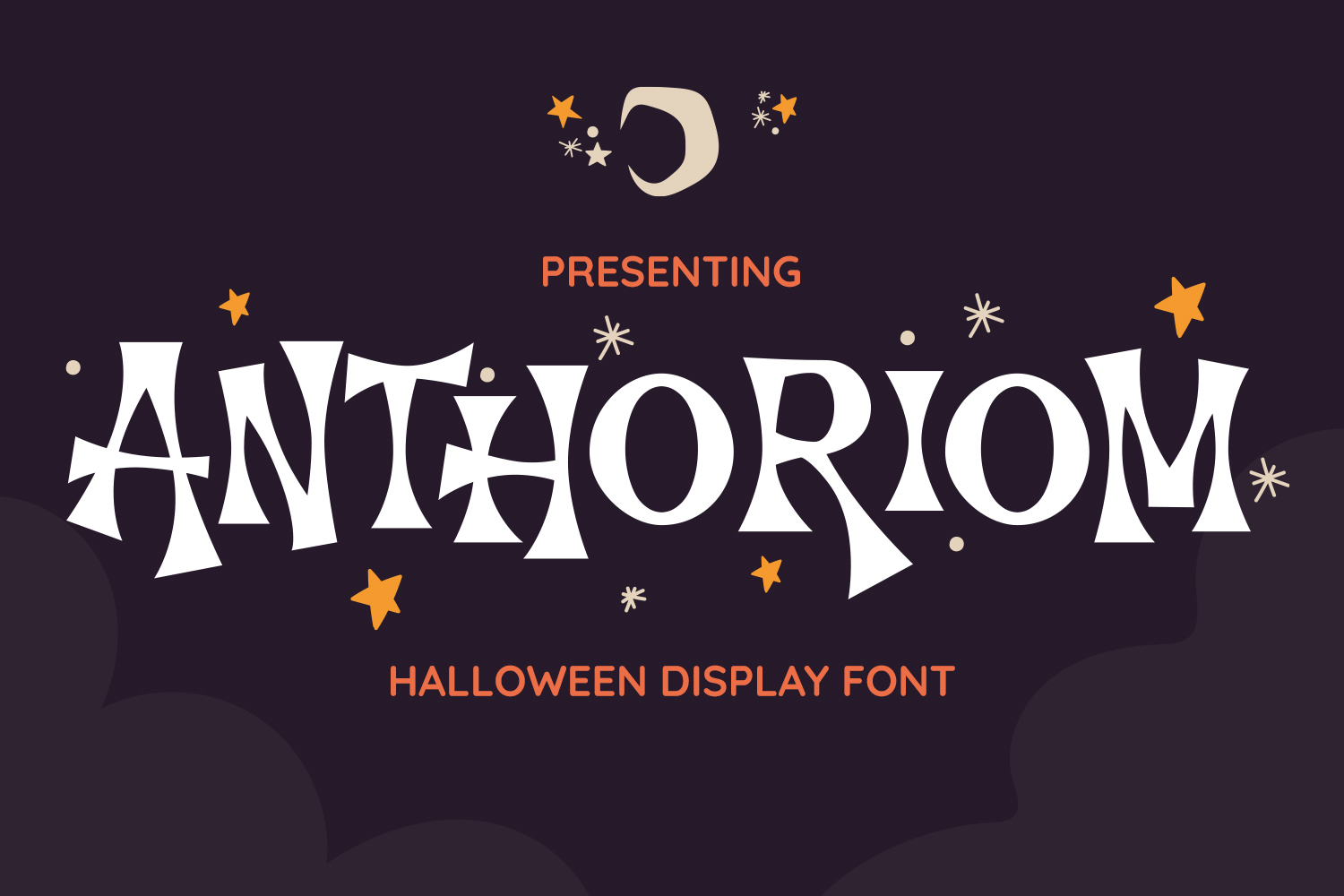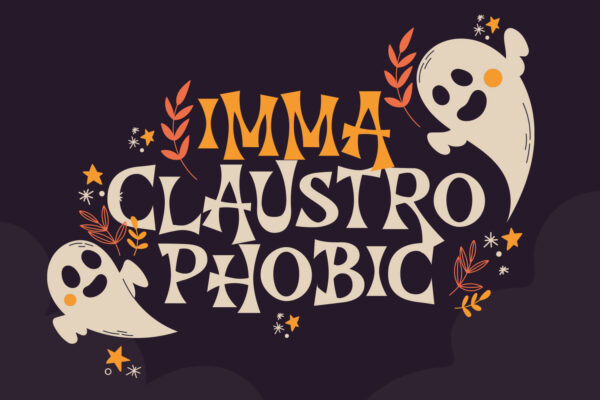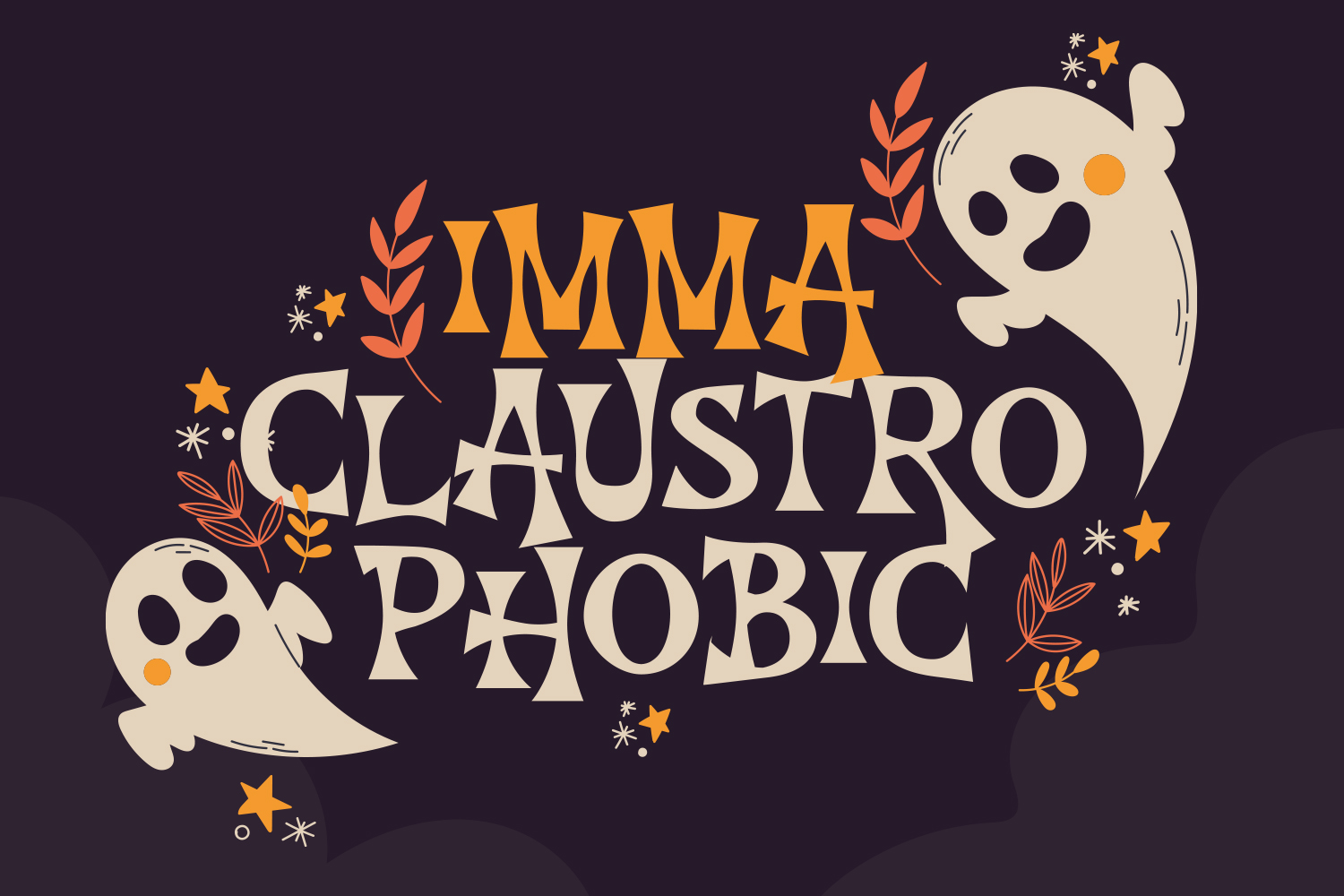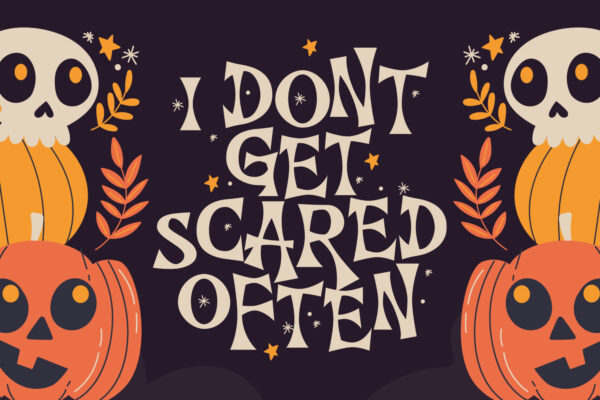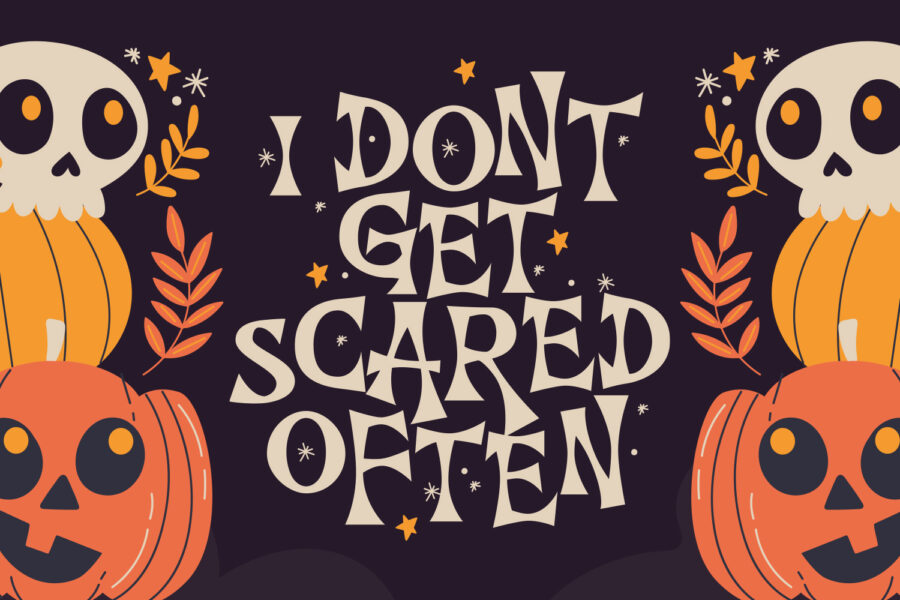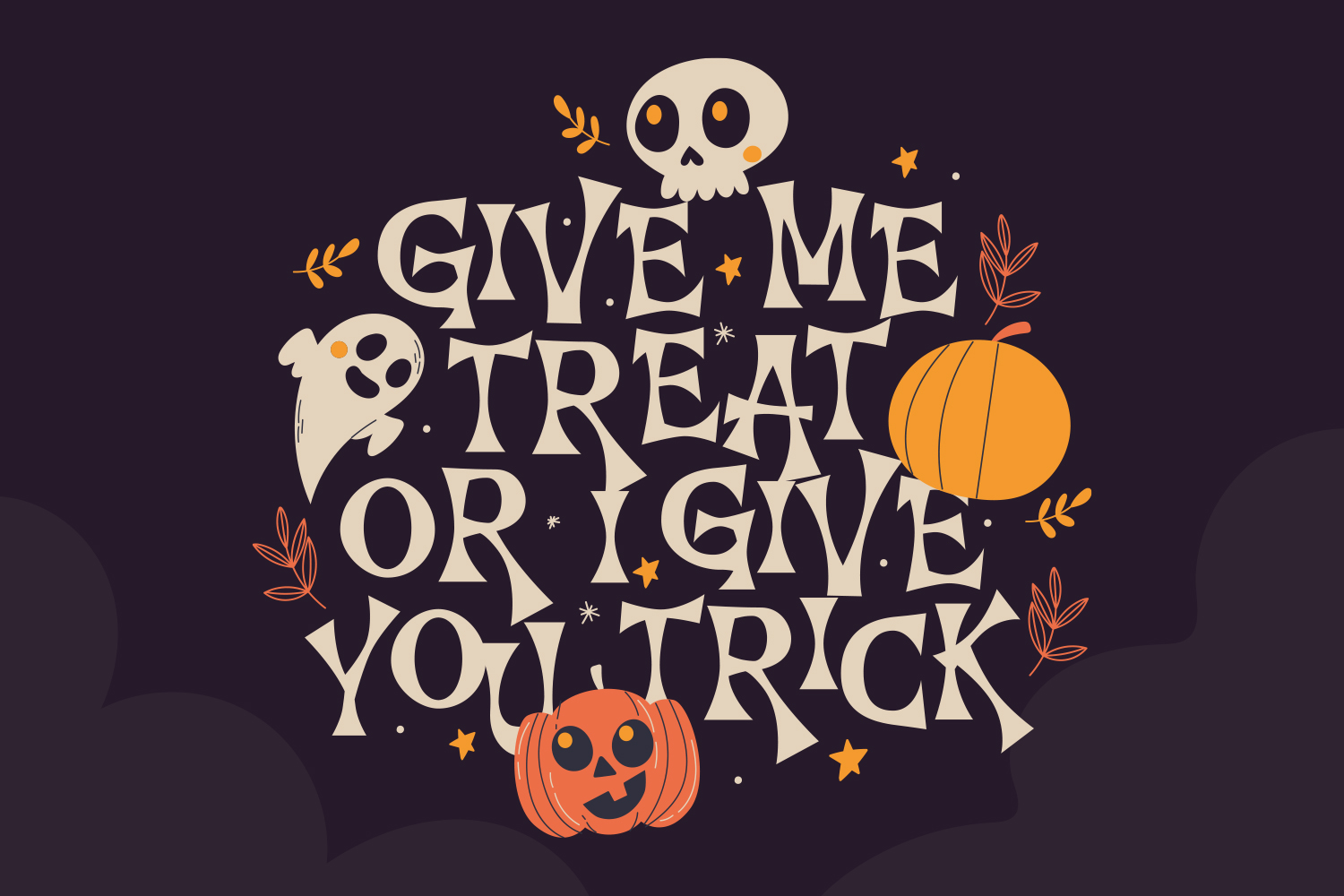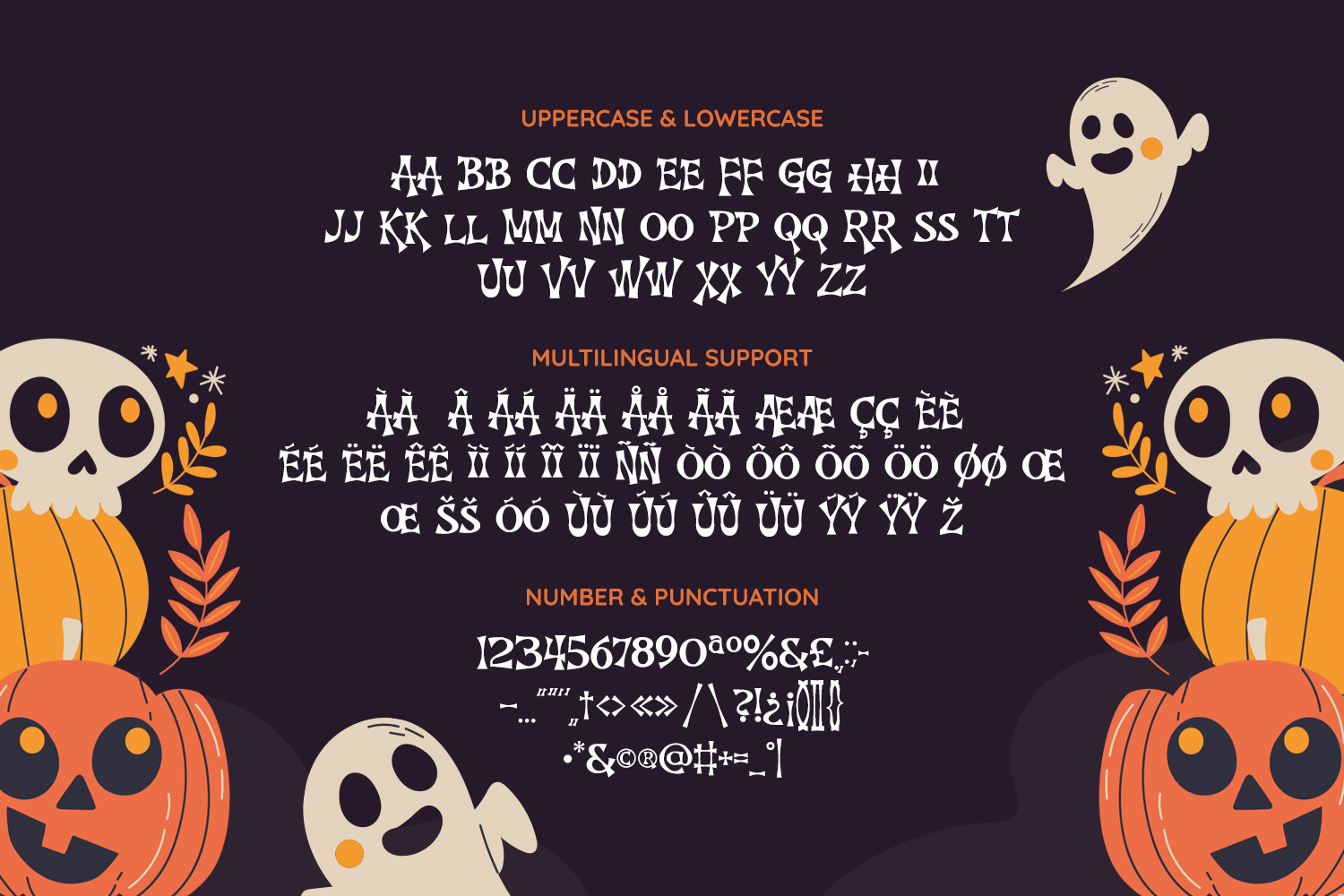
Anthoriom is a whimsical Halloween display font that brings playful energy and quirky charm to your spooky season designs. With its exaggerated serifs and irregular, hand-crafted shapes, Anthoriom captures the essence of festive fright in a way that’s both fun and expressive. The font’s unique character alternates and bold curves make it perfect for Halloween-themed t-shirts, posters, candy packaging, or party invitations.
This font includes uppercase and lowercase letters, numbers, punctuation, and multilingual support, making it highly versatile for a wide range of seasonal projects. Whether you’re designing eerie merchandise, children’s book titles, or social media graphics, Anthoriom injects a bold and animated spirit that brings your Halloween visuals to life with personality and flair.
Anthoriom